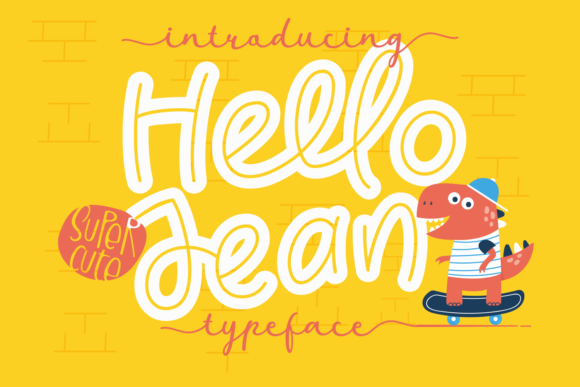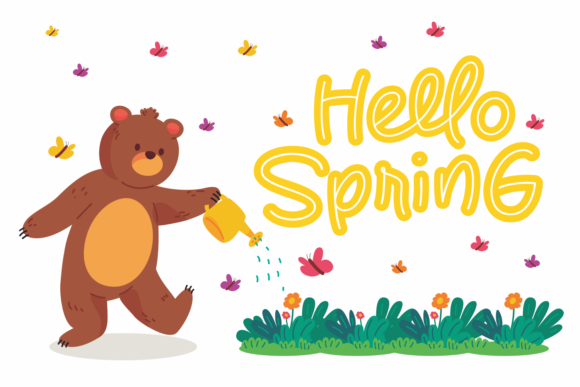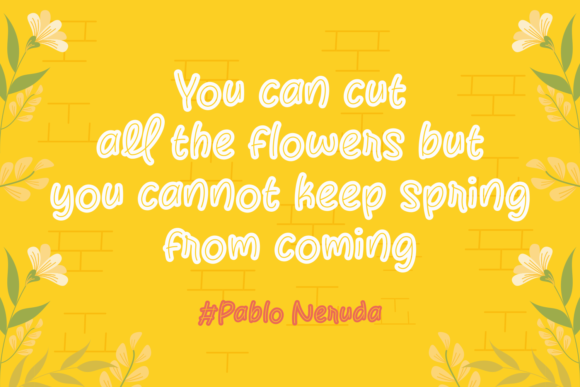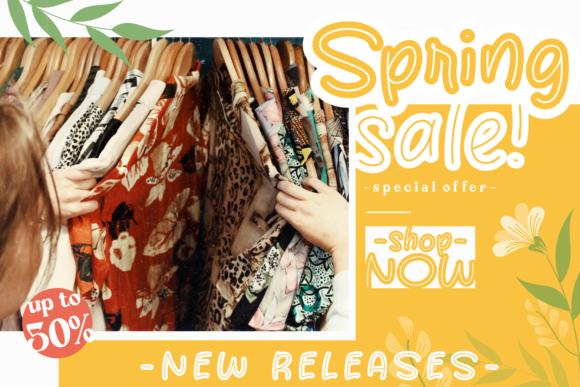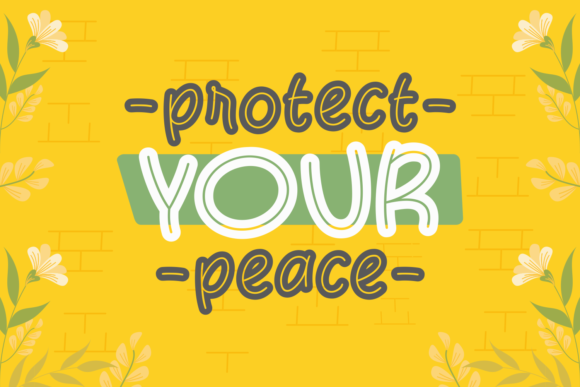
Hello Jean Font
Hello Jean is a fun and friendly display font, that can easily stand out. Simple but with a strong visual effect, this font will instantly make your creation more appealing than any others.